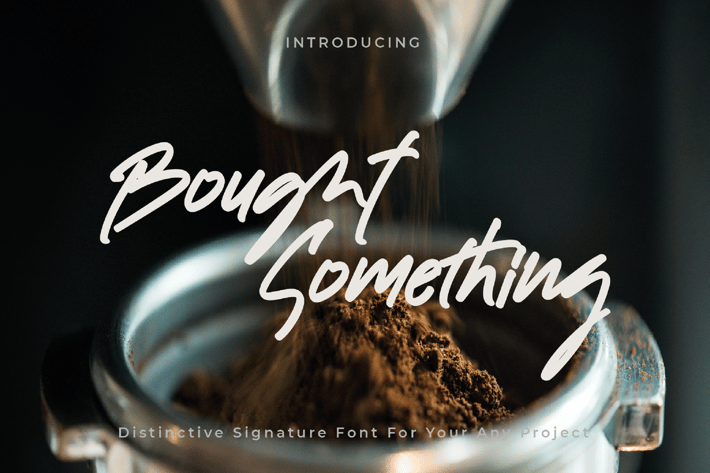
Bought Something - Signature Font
Bought Something \\ Signature Font
Bought Something is a unique handwritten font with a handmade touch. This font is perfect for any project.
Stylish modern handwritten script
Special Ligatures